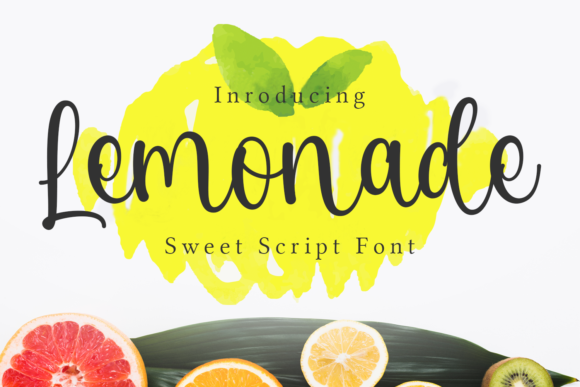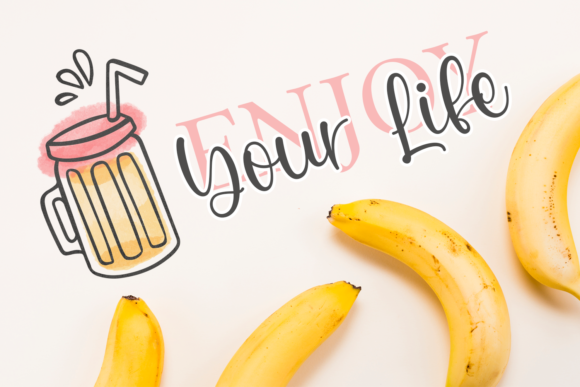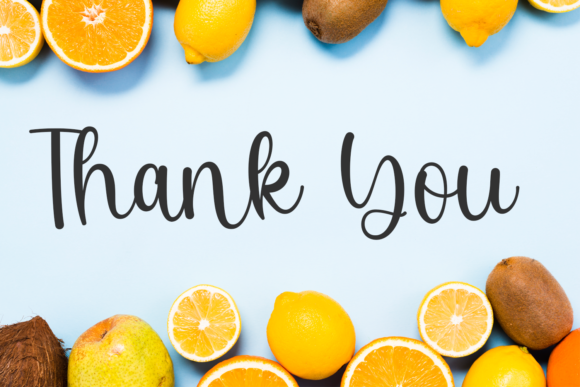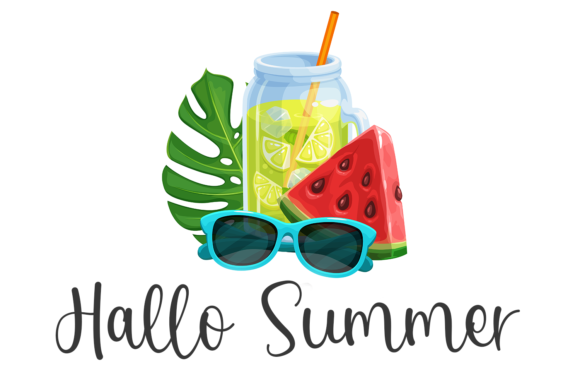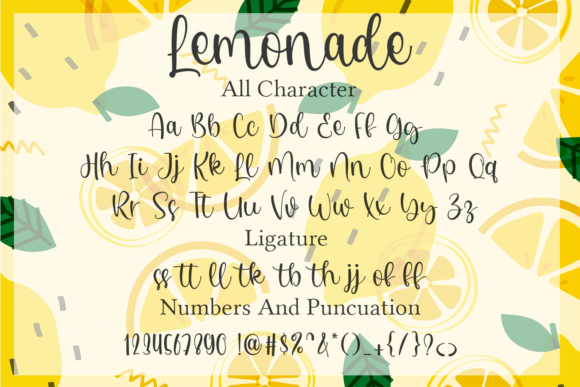
About Lemonade Font
Lemonade is a graceful and elegant handwritten font that exudes a delicate charm. With its unique and well-rounded letterforms, this font stands out as a true masterpiece. Its versatility allows it to be used in a wide range of design projects, making it a valuable asset for any creative endeavor.
The distinct and refined appearance of Lemonade adds a touch of sophistication to any design. The smooth curves and gentle strokes of each letter create a harmonious and balanced visual appeal. Whether used for logos, branding, invitations, or any other creative project, Lemonade brings a sense of elegance and refinement.
The versatility of Lemonade allows it to adapt to various design styles and themes. Its delicate nature makes it well-suited for projects that require a soft and feminine touch, such as wedding invitations, beauty and fashion branding, and romantic quotes. Additionally, Lemonade can also add a touch of elegance and sophistication to more minimalistic or modern designs, creating a beautiful contrast.
Fall in love with the incredibly versatile style of Lemonade and let it inspire you to create spectacular designs. Experiment with different layouts, sizes, and color schemes to bring out the full potential of this font. Its versatility and timeless appeal make it a valuable addition to your font library.
Embrace the delicate and elegant nature of Lemonade and let it elevate your designs to new heights. Its distinct and well-rounded letters will bring a touch of artistry and sophistication to your creative projects, leaving a lasting impression on your audience.